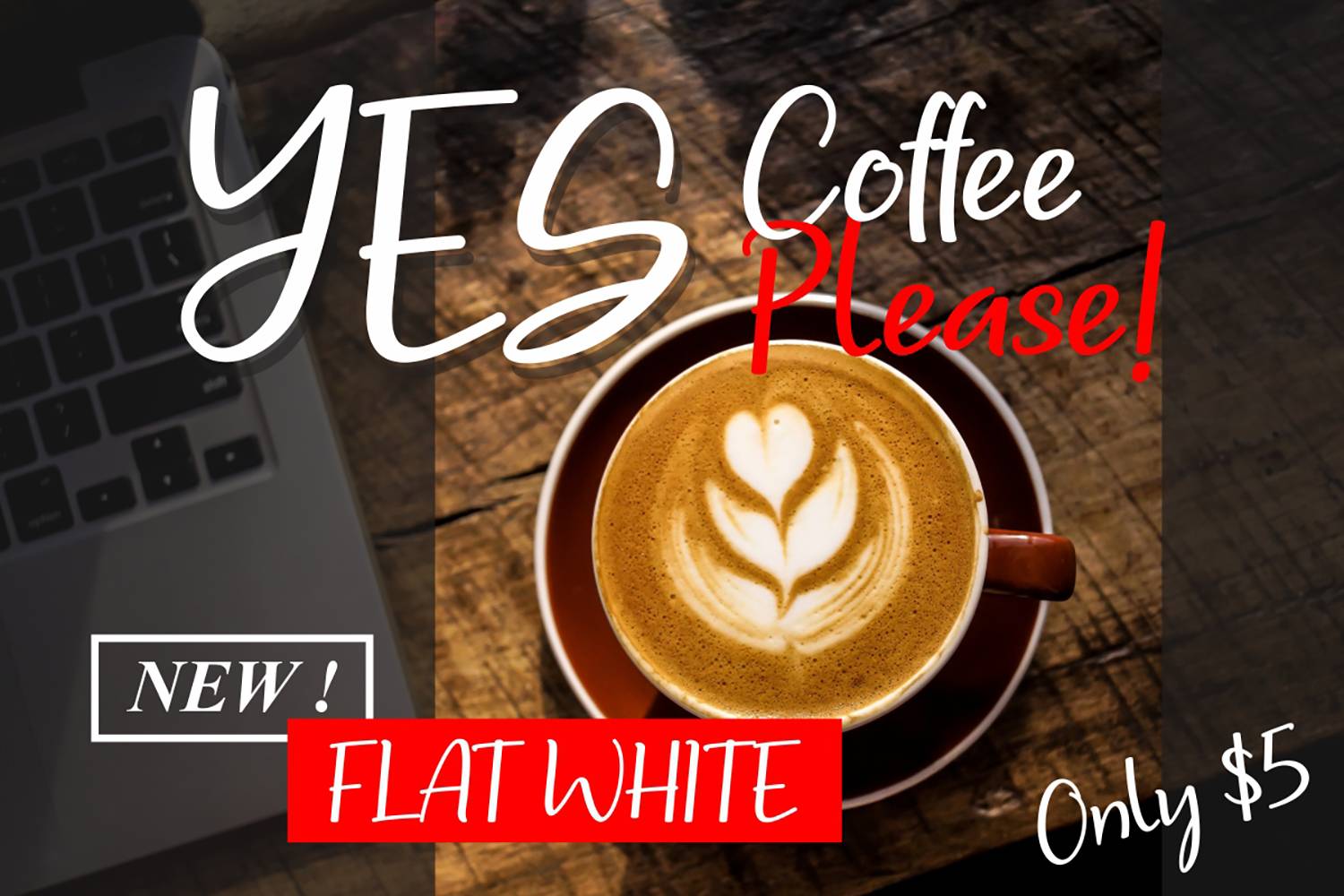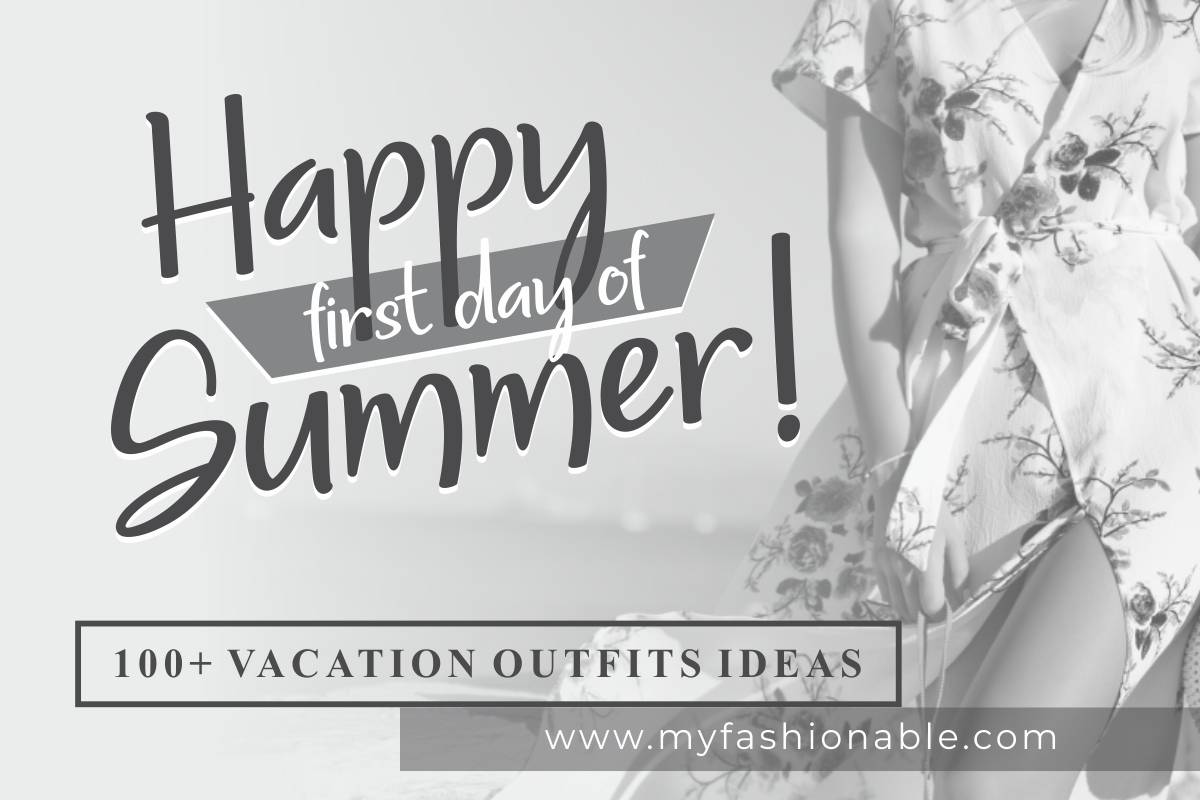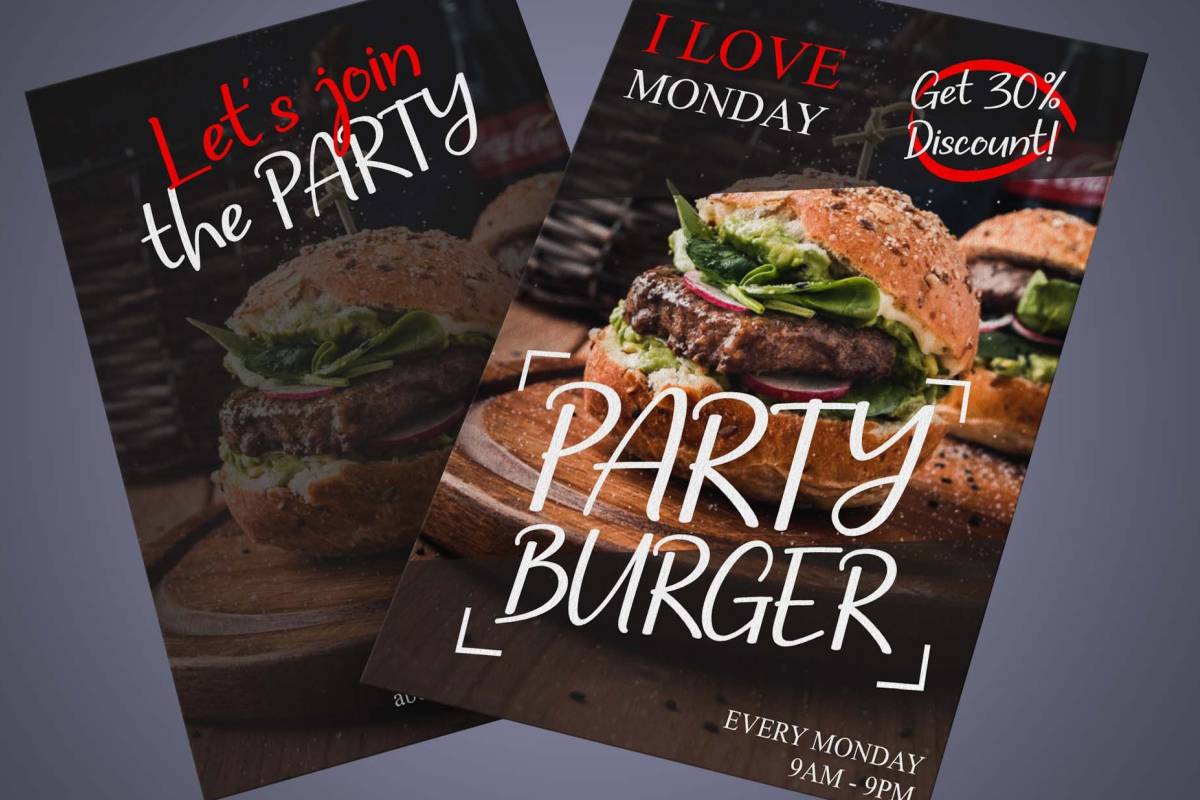
Black Arthy is a casual, handwritten script font that features a light to regular weight with a slightly narrow width and a tall x-height, giving it a lively and approachable feel. Its smooth, slightly irregular strokes and playful letterforms, including singularly styled lowercase characters and naturally flowing curves, make it ideal for informal designs like greeting cards, branding for creative projects, and casual headlines. This font’s relaxed yet legible style works well where a personal, friendly tone is desired without sacrificing clarity.
Black Arthy Font